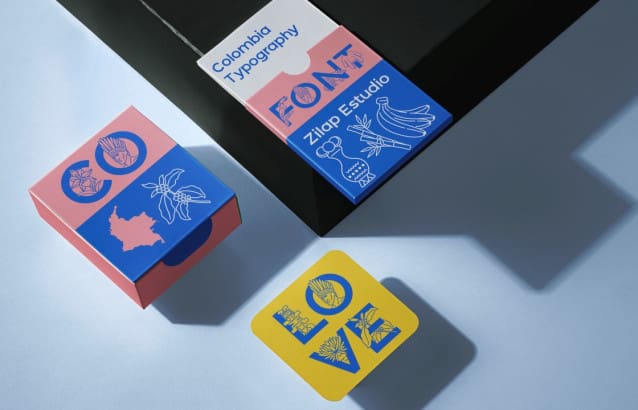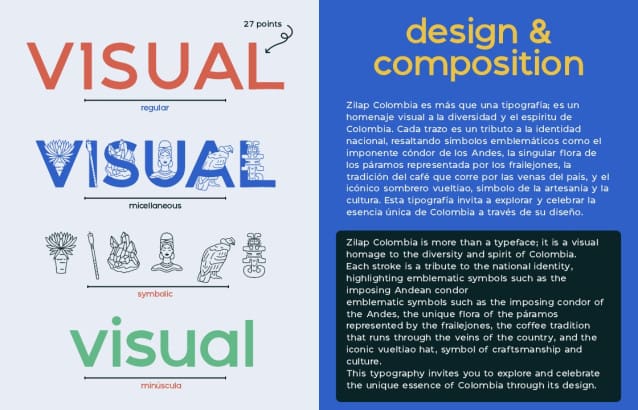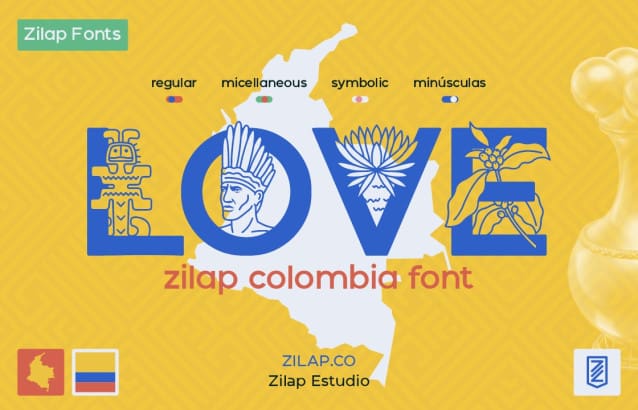
Zilap Colombia Font
Zilap Colombia Font is more than a typography; it is a visual tribute to the diversity and spirit of Colombia. Each stroke is a tribute to the national identity, highlighting emblematic symbols such as the imposing condor of the Andes, the unique flora of the páramos represented by the frailejones, the coffee tradition that runs through the veins of the country, and the iconic vueltiao hat, symbol of craftsmanship and culture.
This typeface invites you to explore and celebrate the unique essence of Colombia through its design.